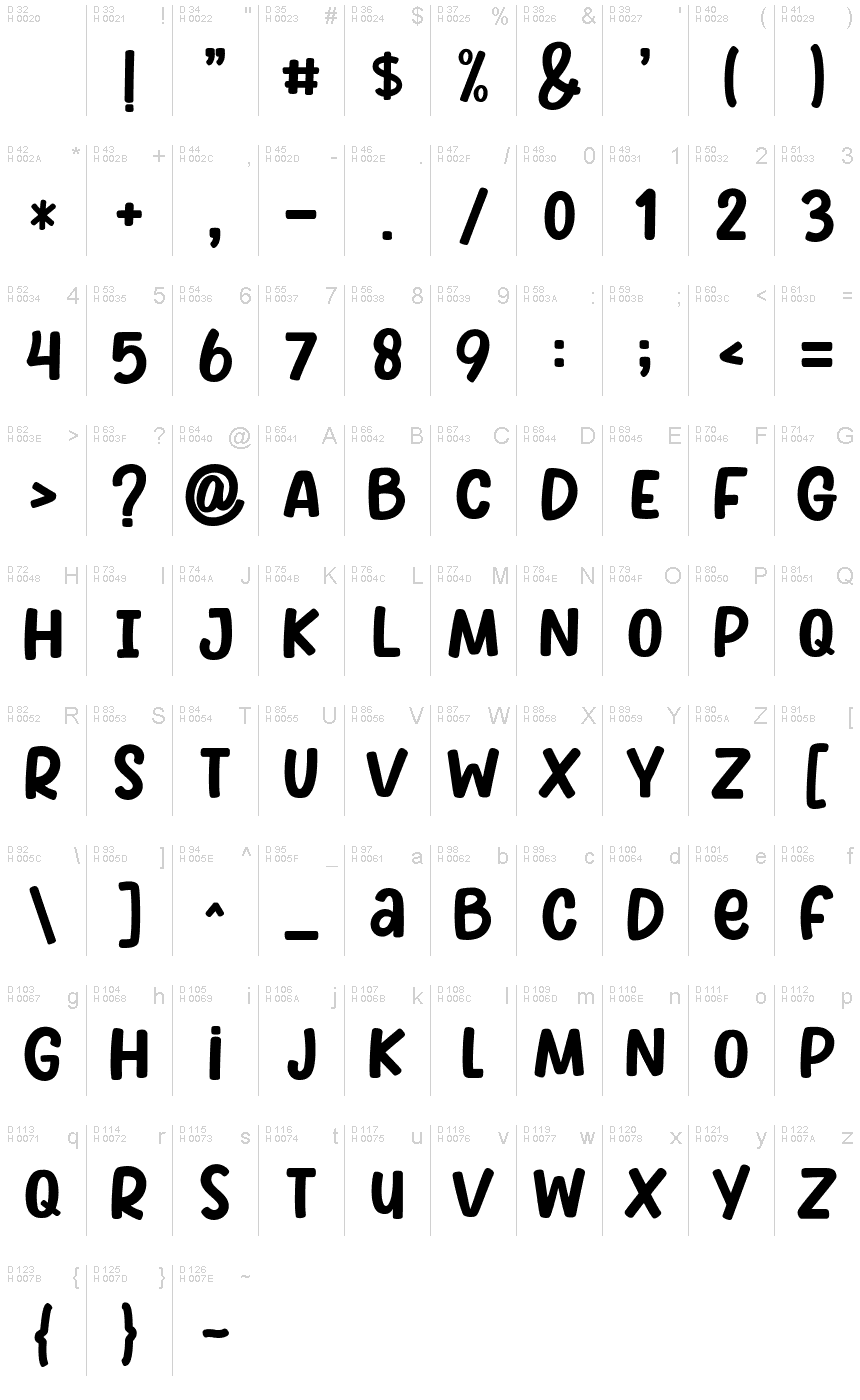
SKULL BONES Bold
Skull Bones Bold is a captivating and expressive display font designed by Ramli Setiadi. With its semi-bold weight, this font exudes confidence and adds a touch of playfulness to any project.
Its comic style makes it ideal for creating eye-catching headlines, posters, and banners that demand attention. Use Skull Bones Bold to bring life to children's books, comic strips, or even animated logos. This versatile font is also perfect for designing game interfaces or websites with a fun and quirky aesthetic.